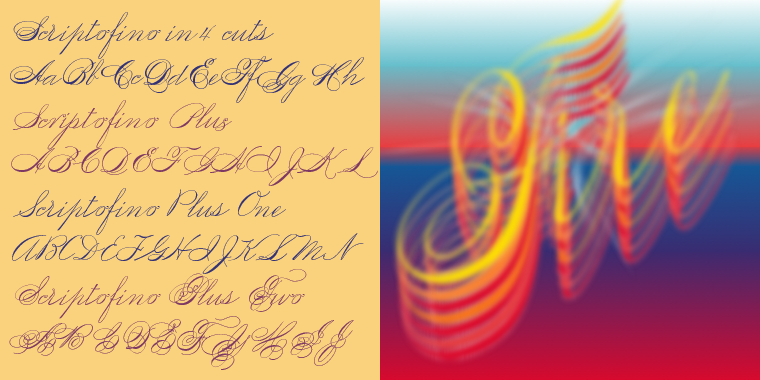
The Scriptofino Font is an elegantly flowing and sophisticated typeface, perfect for designs that call for a refined handwritten aesthetic with a touch of artistic flair. Its delicate connections and graceful curves make it an excellent choice for upscale branding, boutique product labels, signature logos, wedding stationery, fine dining menus, and luxurious website headers. Whether you're crafting an exclusive invitation or designing a chic personal brand, this font will infuse your project with a sense of bespoke quality and understated beauty.
What makes the Scriptofino Font so exciting is its ability to perfectly emulate the charm of authentic calligraphy while maintaining excellent readability. It often features an impressive array of OpenType features, including stylistic alternates, ligatures, and swashes, allowing designers extensive control to customize the look and feel of the text. This font is ideal for those who want to convey a sense of artistry, exclusivity, or a personal touch in their designs. It stands out by offering a beautiful balance between traditional calligraphic elegance and modern digital functionality, making any text it graces feel uniquely crafted and thoughtfully presented.
The Scriptofino Font typically offers a versatile range of features to support diverse design needs. While specific offerings may vary depending on the font package, you can generally expect to find a Regular weight, often complemented by a Bold version for added emphasis and versatility. Many versions of the Scriptofino Font Free Download are rich in OpenType features, including numerous stylistic alternates, extensive ligatures (connecting letter pairs), and a variety of elegant swashes that allow designers to create a truly customized calligraphic appearance. Some premium packages might also offer initial and terminal forms for letters, offering even greater creative control over letter shapes and overall flow. This extensive set of features ensures that the Scriptofino Font can be adapted to almost any design requirement, maintaining its consistent elegance and sophisticated charm throughout your project.